Typeface anatomy
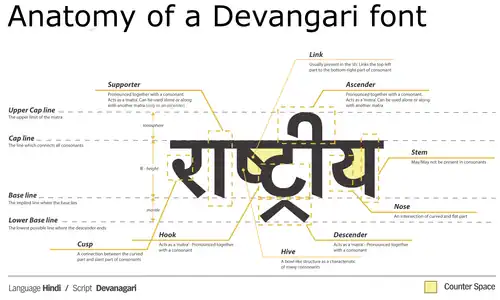
Typeface anatomy describes the graphic elements that make up letters in a typeface.[1][2]
Typefaces are born from the struggle between rules and results. Squeezing a square about 1% helps it look more like a square; to appear the same height as a square, a circle must be measurably taller. The two strokes in an X aren't the same thickness, nor are their parallel edges actually parallel; the vertical stems of a lowercase alphabet are thinner than those of its capitals; the ascender on a d isn't the same length as the descender on a p, and so on. For the rational mind, type design can be a maddening game of drawing things differently in order to make them appear the same.
— Hoefler & Frere-Jones[3]
Strokes
The strokes are the components of a letterform.[4] Strokes may be straight, as in k l v w x z, or curved, as in c o s. If straight, they may be horizontal, vertical, or diagonal; if curved, open or closed. Typographers also speak of an instroke, where one starts writing the letter, as at the top of a c f, and an outstroke, where the pen leaves off, as at the bottom of c e j k t y.[5]
A main vertical stroke is a stem. The letter m has three, the left, middle, and right stems. The central stroke of an s is known as the spine.[6] When the stroke is part of a lowercase[4] and rises above the height of an x (the x height), it is known as an ascender.[7] Letters with ascenders are b d f h k l. A stroke which drops below the baseline is a descender.[7] Letters with descenders are g j p q y.
An arching stroke is a shoulder as in the top of an R or sometimes just an arch, as in h n m.[4] A closed curved stroke is a bowl in b d o p q D O P Q; B has two bowls. A bowl with a flat end as in D P is a lobe.[8] A trailing outstroke, as in j y J Q R is a tail. The inferior diagonal stroke in K is a leg.[9] The bottom of the two-story g is a loop; the very short stroke at the top is the ear.[10] The letters i j each have a dot or tittle.[10]
A short horizontal stroke, as in the center of e f and the middle stroke of E F, is a bar. Strokes that connect, as in A and H, or cross other strokes, as in t, are also known as crossbars.[9] A longer horizontal stroke at the top or bottom, as in E T, is an arm.[4] The junction of two strokes intersecting above as in A M X x is an apex and the joining of two strokes intersecting below as in V W v w is a vertex.[10]
The font shown in the example is stressed; this means that strokes have varying widths. In this example, the stroke at the top of the "g" is thinner at the top and bottom than on the sides – a vertical stress. Fonts without any variation in the stroke width are known as monoline fonts.
Terminals
The terminal (end) of an instroke or outstroke is often a serif or a stroke ending. A seriffed terminal may be described as a wedge, bulbous, teardrop, slab, etc., depending on the design of the type. Typefaces may be classified by their look, of which the weight and serif style – whether serif or sans-serif – are key features.[9] Some designs also have spurs, which are smaller than serifs and appear on angles rather than at a terminal, as on e or G.
Space
Areas of negative space (white space) formed by straight or curved strokes are called counters. Closed counters are found in a b d e g o p q A B D O P Q R, and open counters in a c e f h m n r s t u. The closed counter in e is also named an eye.[9] The term storey refers to stacked counters: When the letter a appears with two counters it is referred to as double-storey a, and when the letter g appears with two closed counters it is known as double-storey g.[11]
Angles of white space, as in W w, are corners (w has three corners); the term is not used for angles of strokes. The small corner formed by a serif, whether curved or angular, is called the serif bracket.
Inter-letter space can be reduced with kerning. A kern is the part of a letter that intrudes into the "box" of an adjacent glyph.
Proportions
A subtle change in proportion impacts weight, perception, measure, and legibility. The letterform height compared to its stroke width modifies the aspect ratio; a slight change in weight sometimes helps to create emphasis. The disparity between thick and thin strokes, known as stress, alters optical perception. As an example, the first sans serif typefaces used strokes of constant thickness, but subsequent technological advances permit drawing thinner strokes. Condensed type occupies less space than expanded type, so that a whole page of text can be reduced to half a page. The capline and x-height ratio improve or decrease word legibility.[4]
Metal type era
During the late metal type period, many fonts (particularly in American typefounding) were issued to "common line".[12] This meant that they were made to standardised proportions, so that fonts of different typefaces could be mixed with no difficulty. This made it possible to mix typefaces from completely different genres such as sans-serifs and have the cap height, baseline and linespacing match perfectly, something not possible with most computer fonts.[12] It even allowed mixing of different sizes of type with a consistent baseline. It however had the disadvantage of often forcing typefaces to be issued with cropped descenders compared to historical typefaces, to allow tight linespacing. A "script line" or "art line" was used for more delicate fonts with long descenders. Titling capitals, meanwhile, were issued taking up the whole space of the metal type area, with no room for descenders.[13][14]